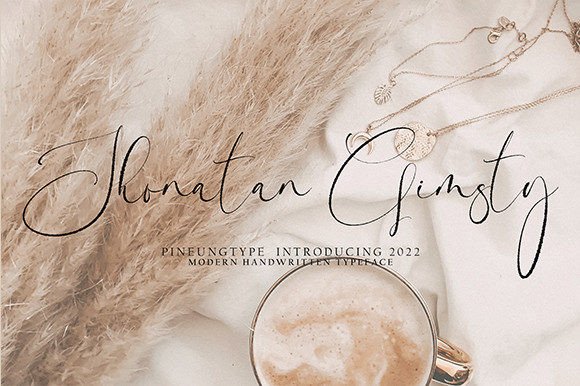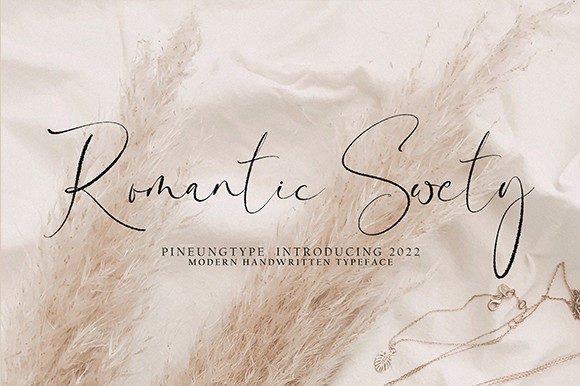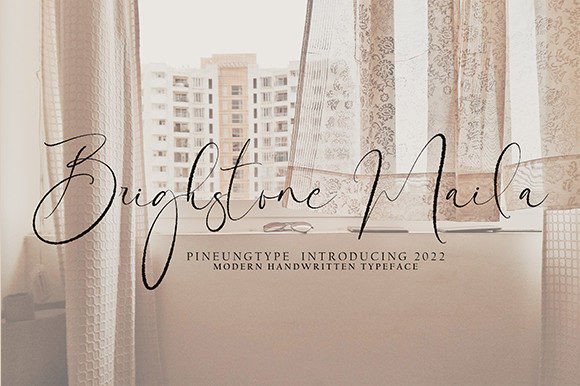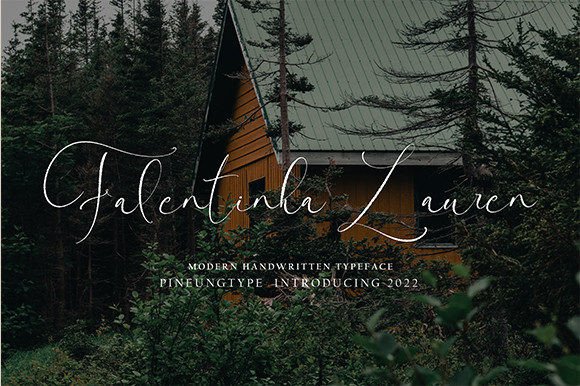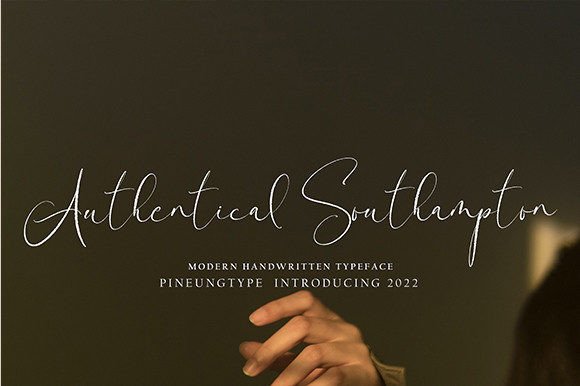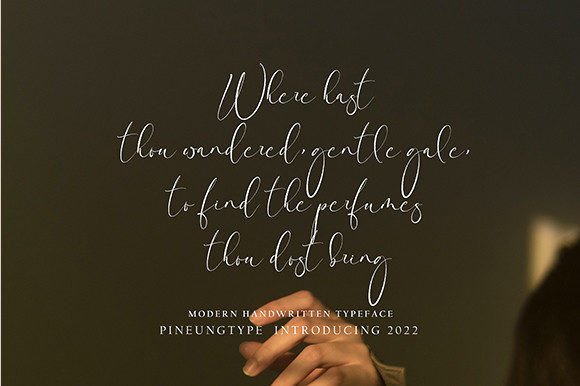
Introduction to Farmhousebarn Font
Farmhousebarn is a flowing handwritten font, described by an elegant touch, perfect for your favorite projects.
Key Features of Farmhousebarn Font